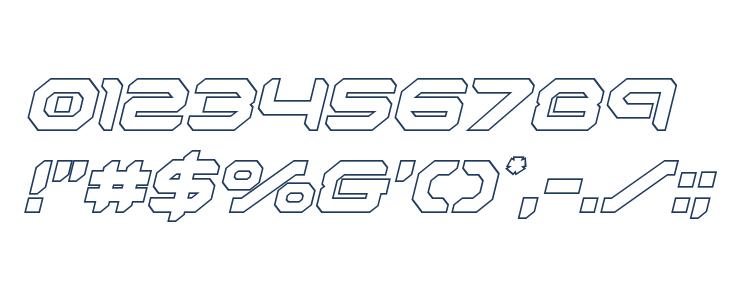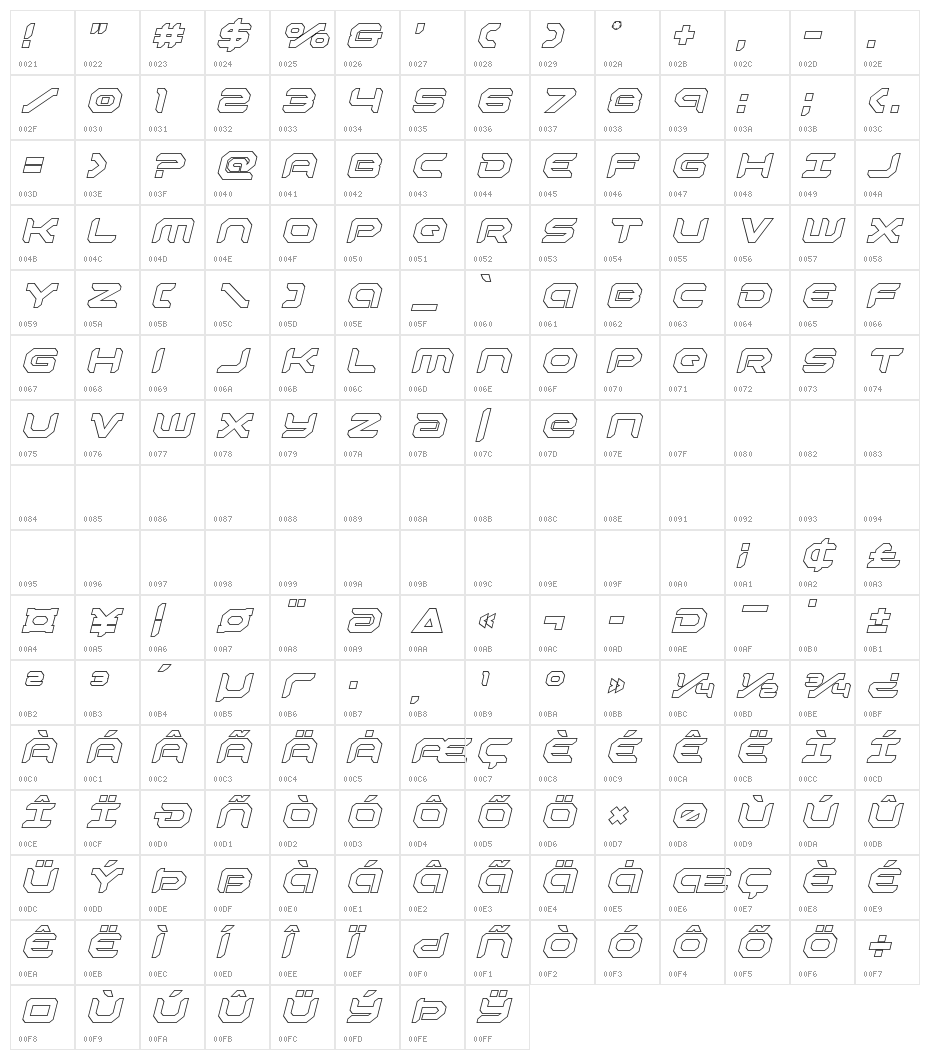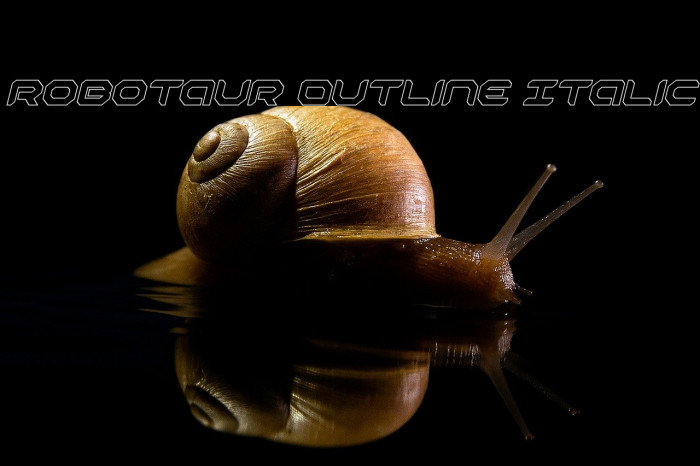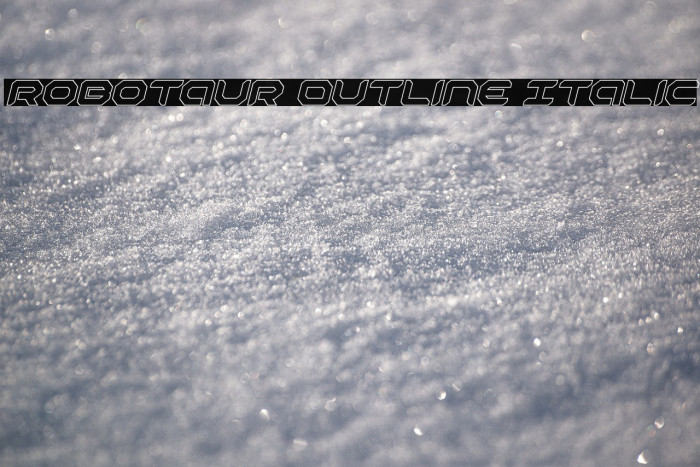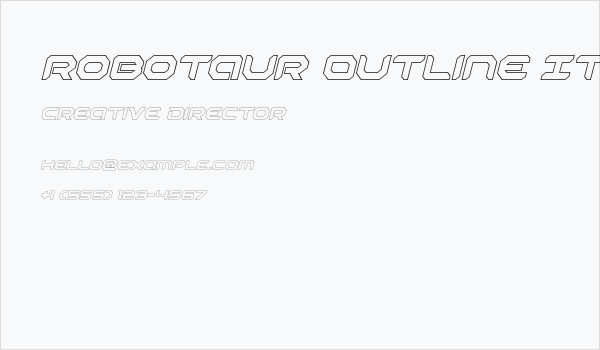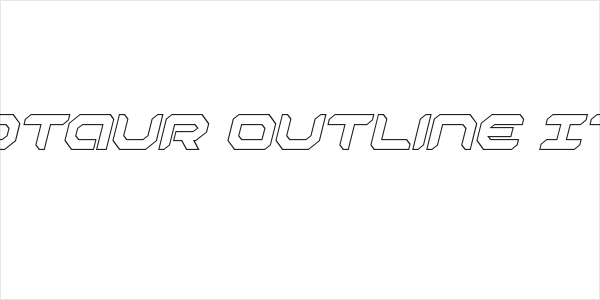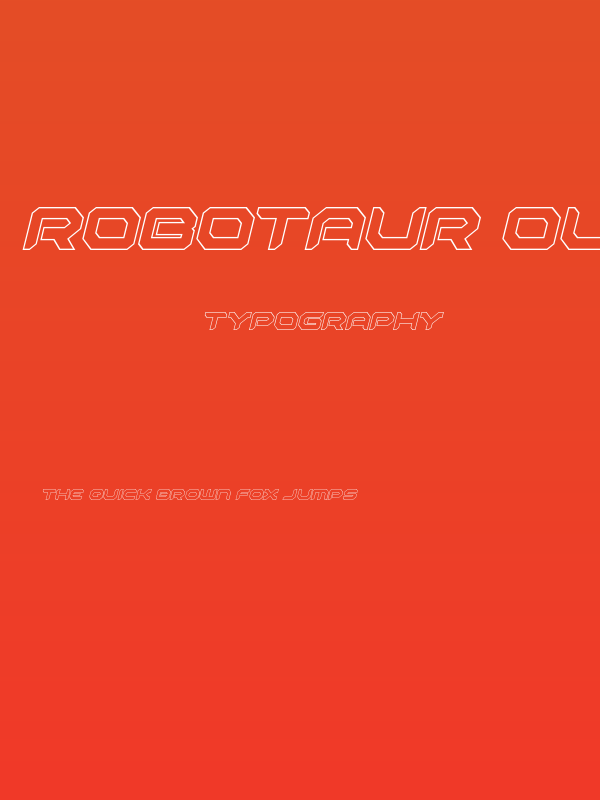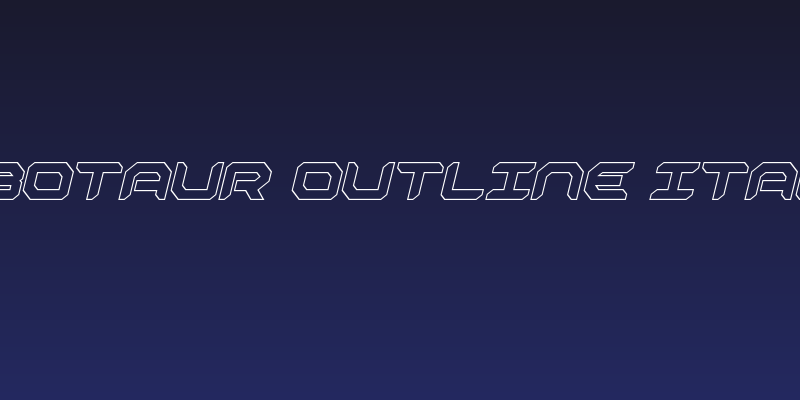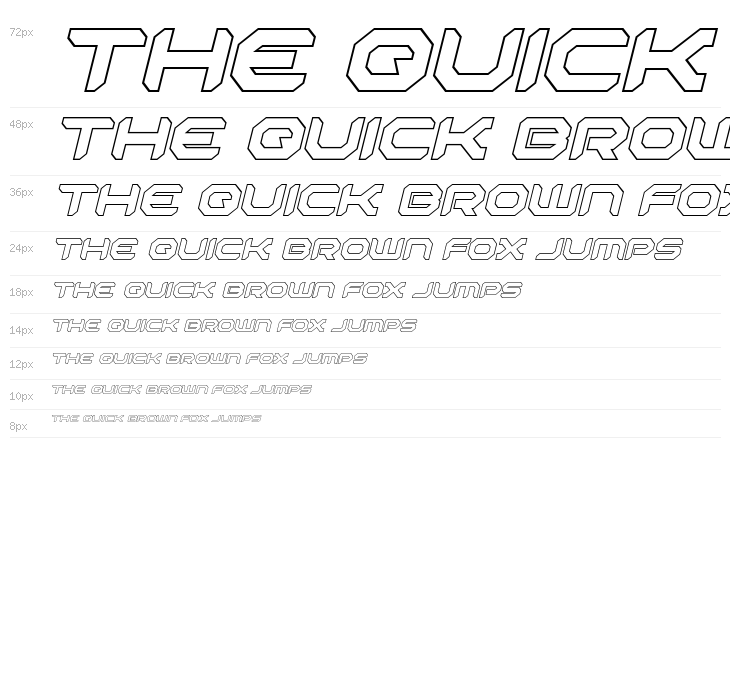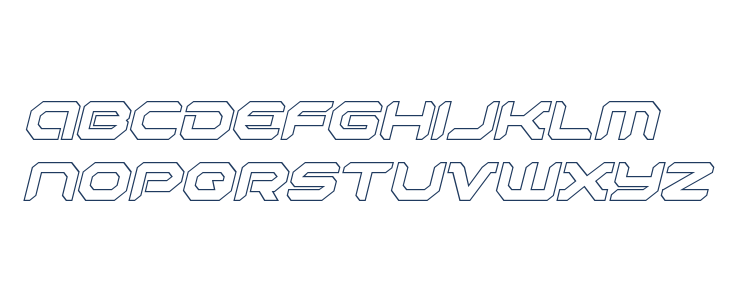
Robotaur Outline Italic Font
Robotaur Outline Italic Description
This font features a futuristic and geometric outline style, characterized by its angular and sharp edges. The letters are italicized, giving a sense of motion and dynamism. The outline design creates a hollow effect, making it visually striking and suitable for modern digital themes. The uppercase and lowercase letters maintain a consistent style, with uniform stroke widths that emphasize its sleek and contemporary appearance. The numerals and special characters follow the same design principles, ensuring a cohesive look across all glyphs. This font is ideal for projects that require a bold and futuristic aesthetic, such as technology branding, sci-fi themed designs, or digital media.
Use CaseLogos, Headlines, Digital Media
Proposed ProjectsIdeal for technology branding, sci-fi themes, digital media, and modern design projects.